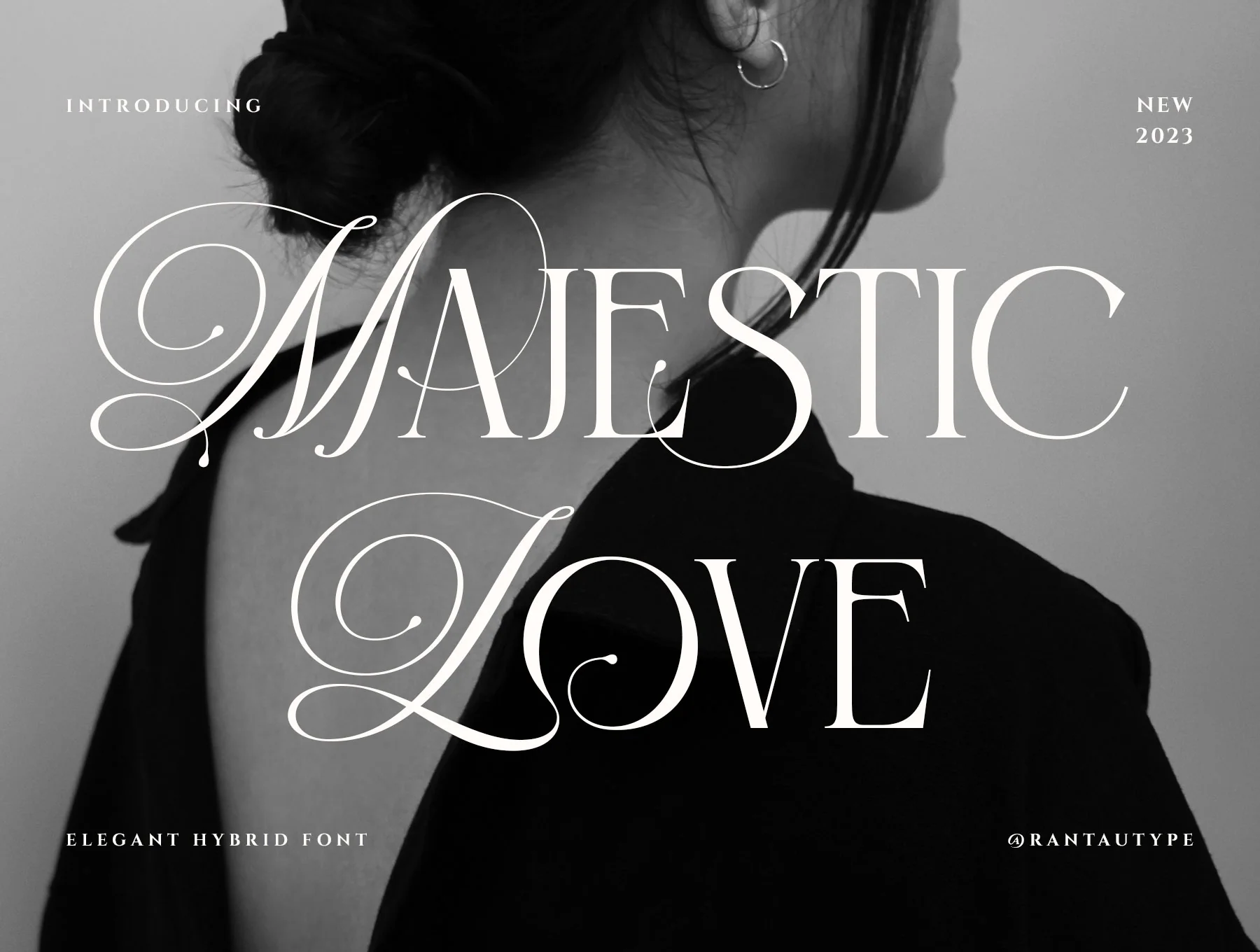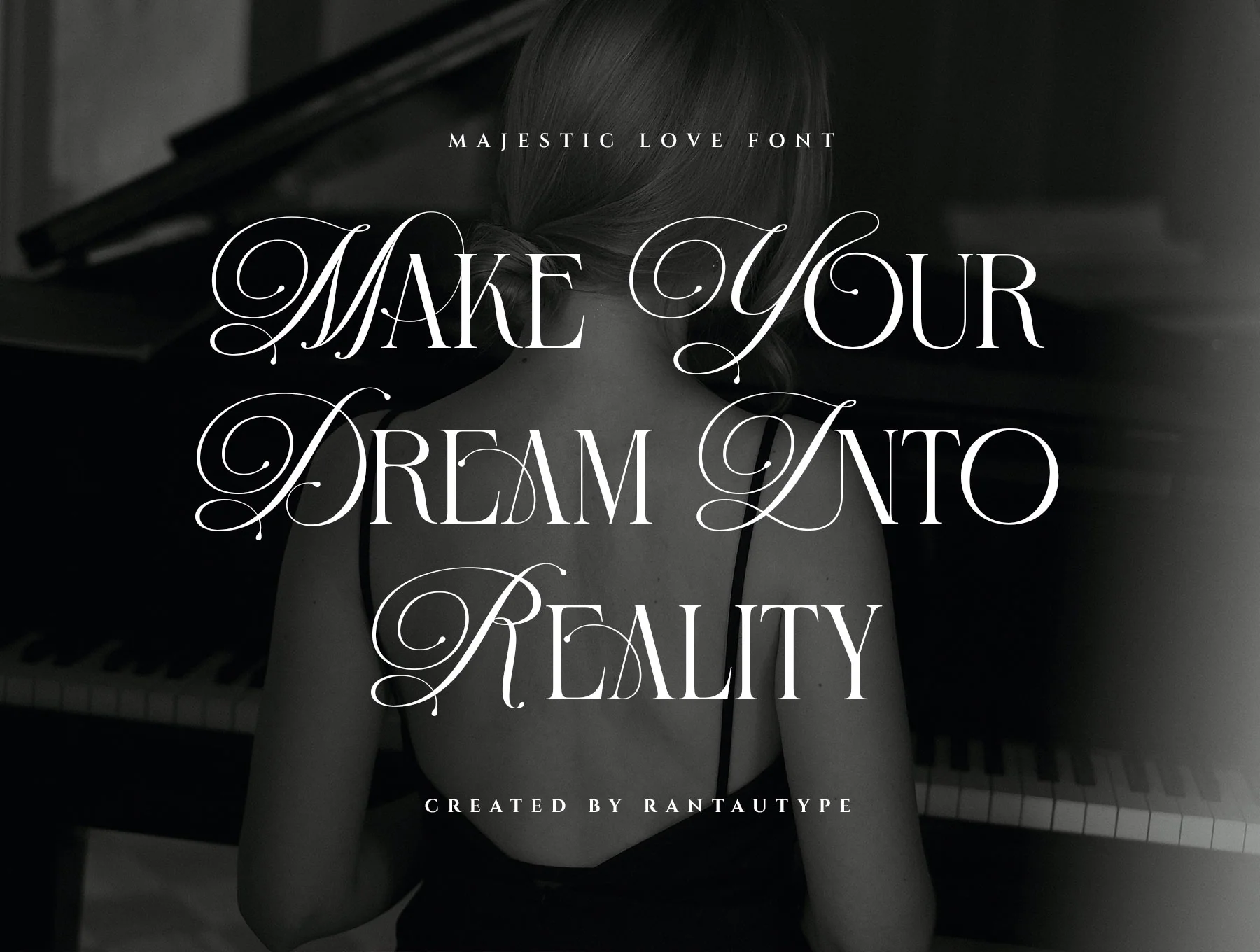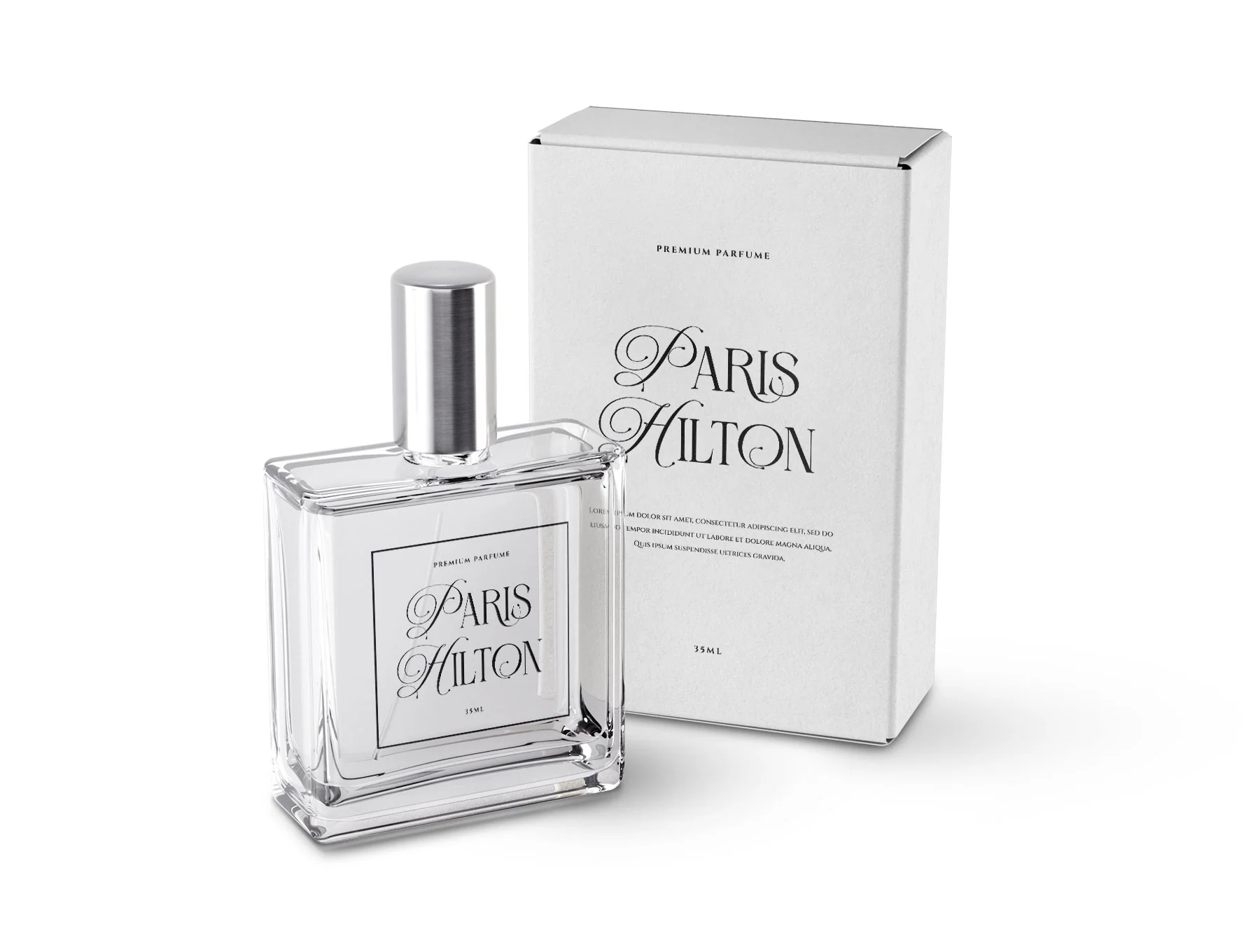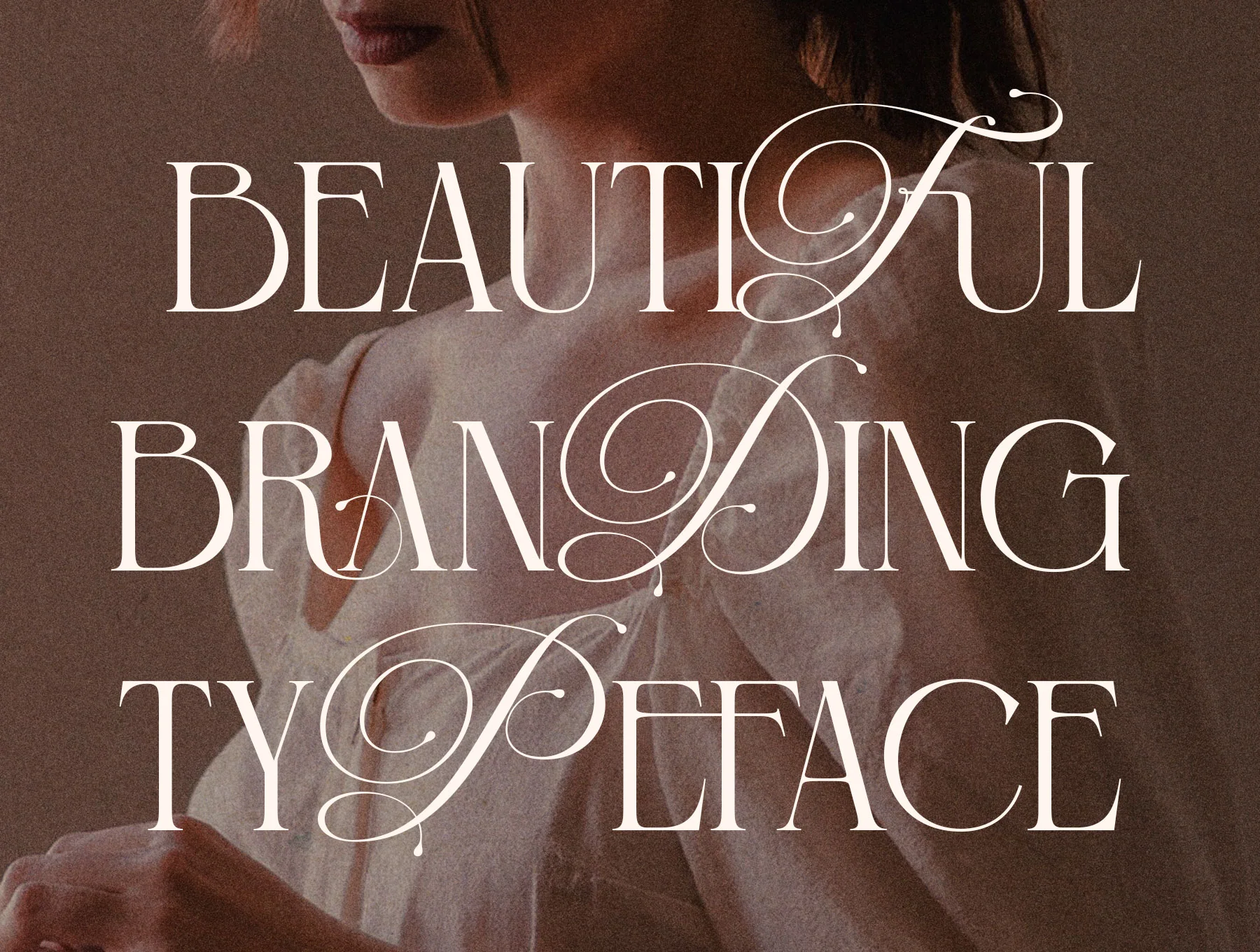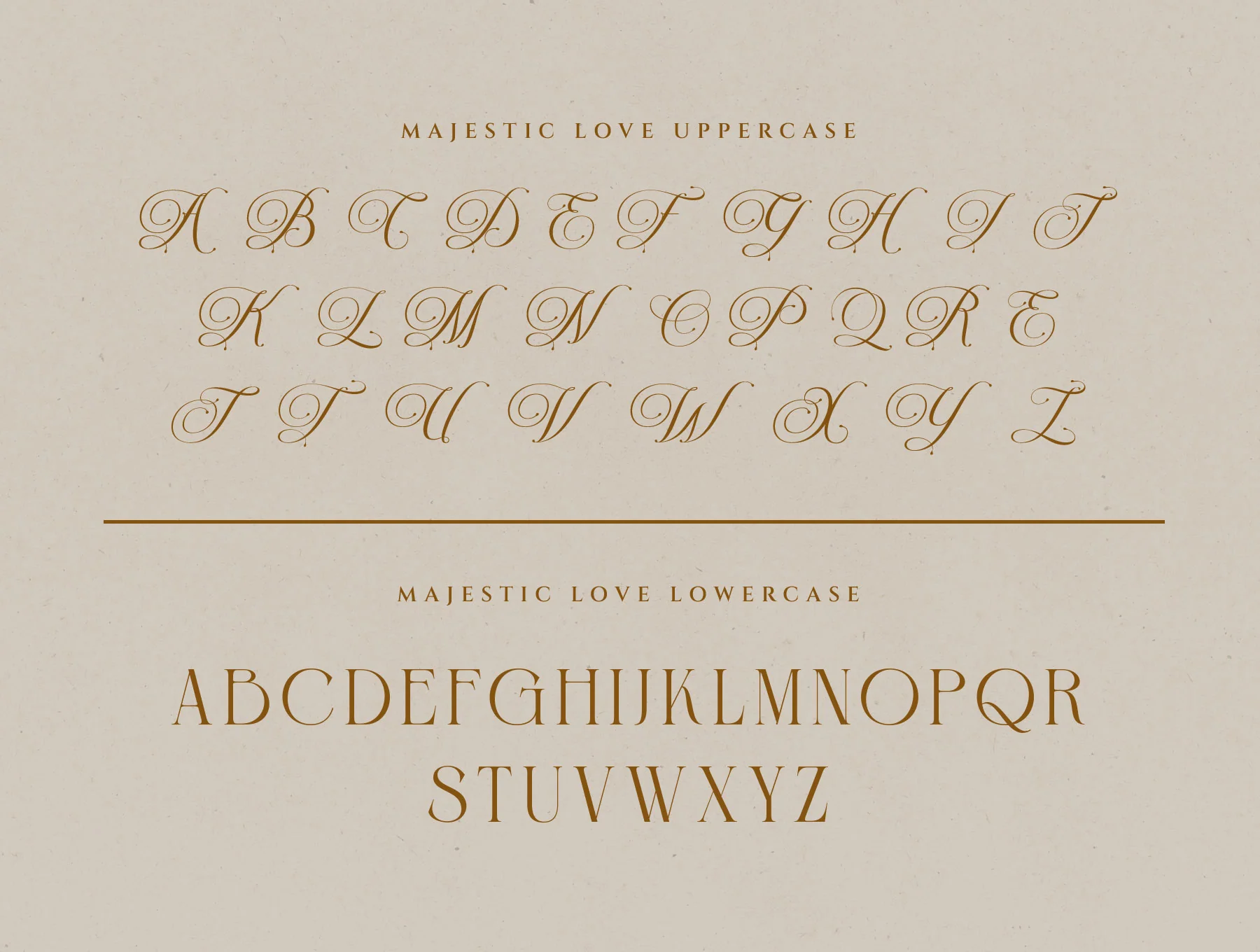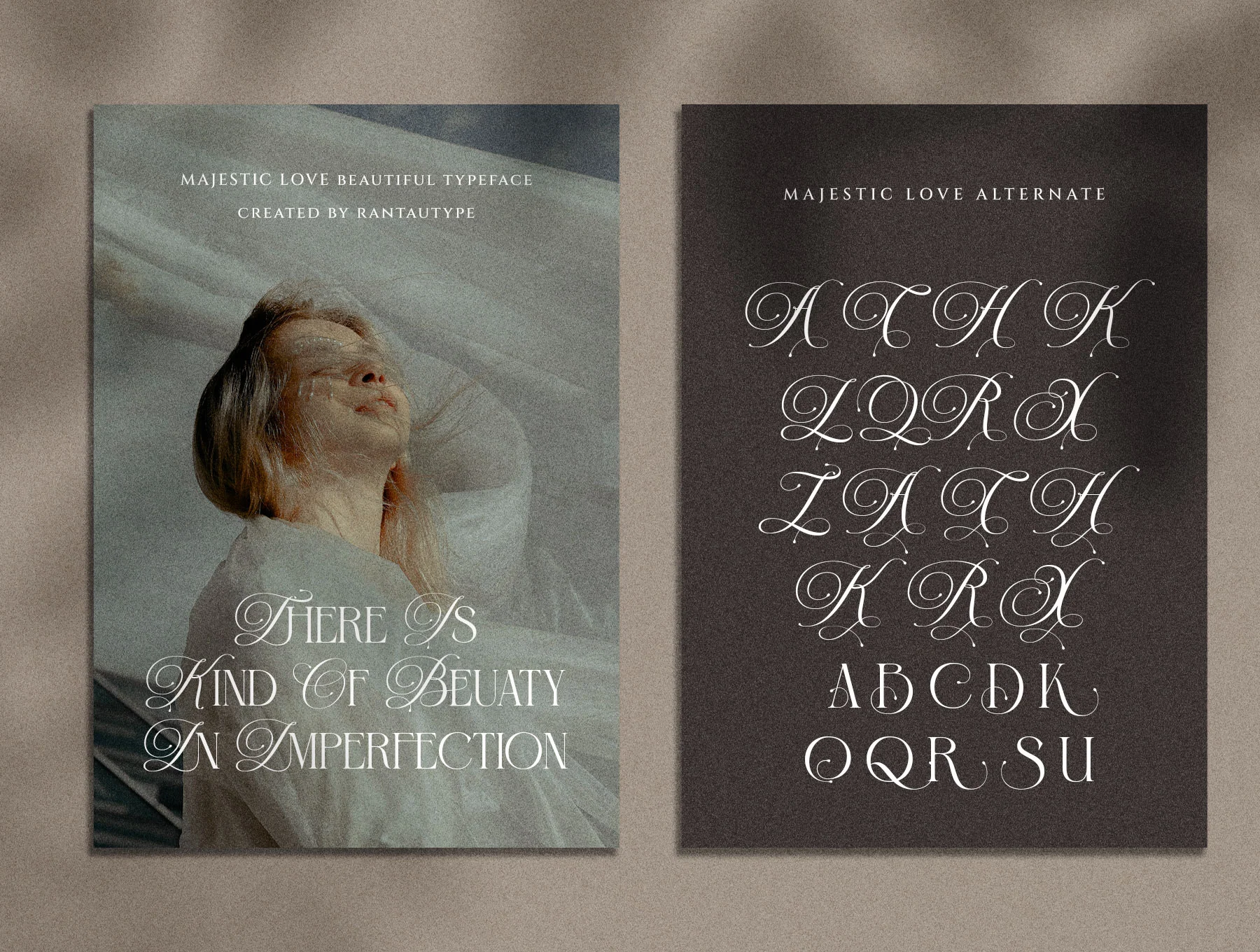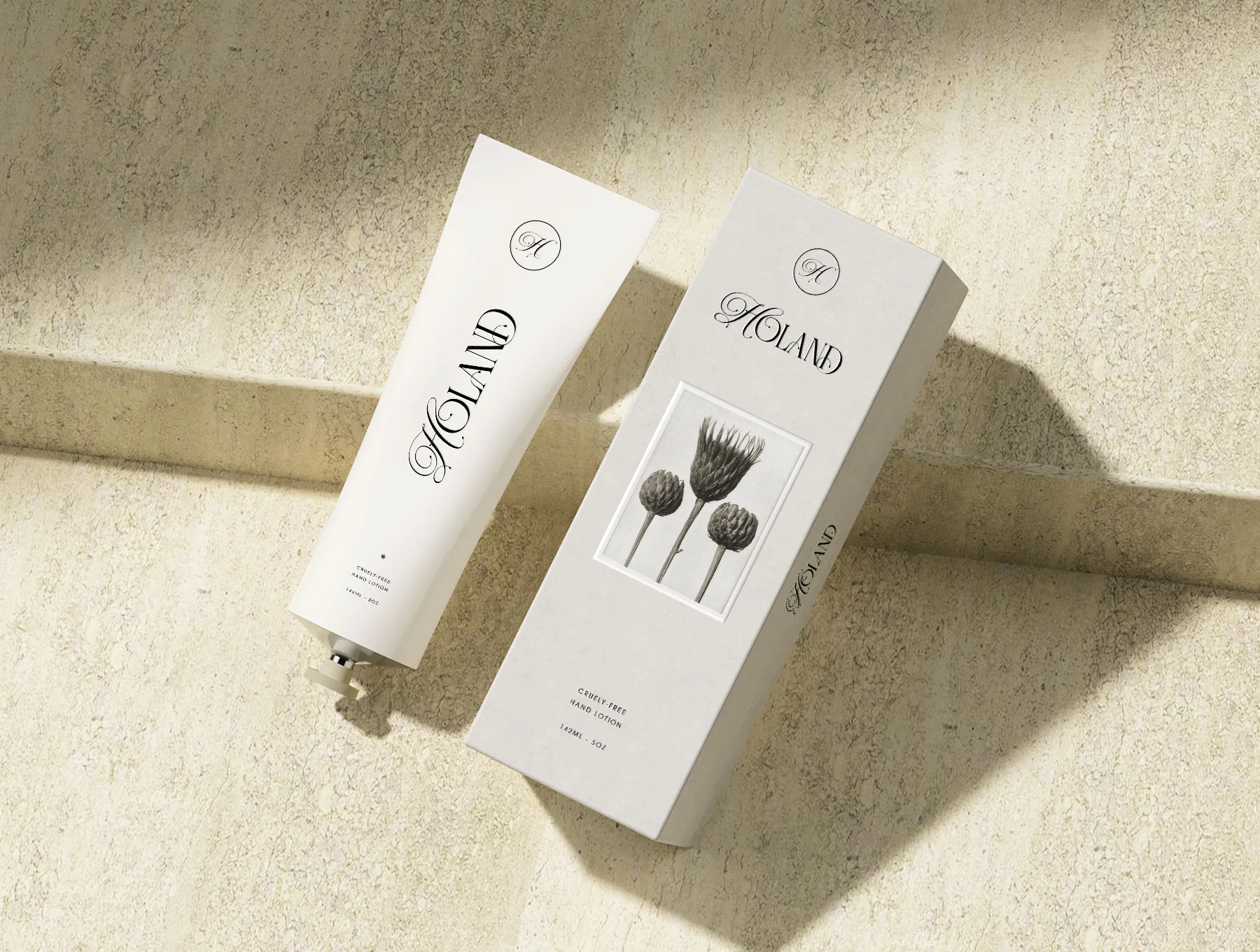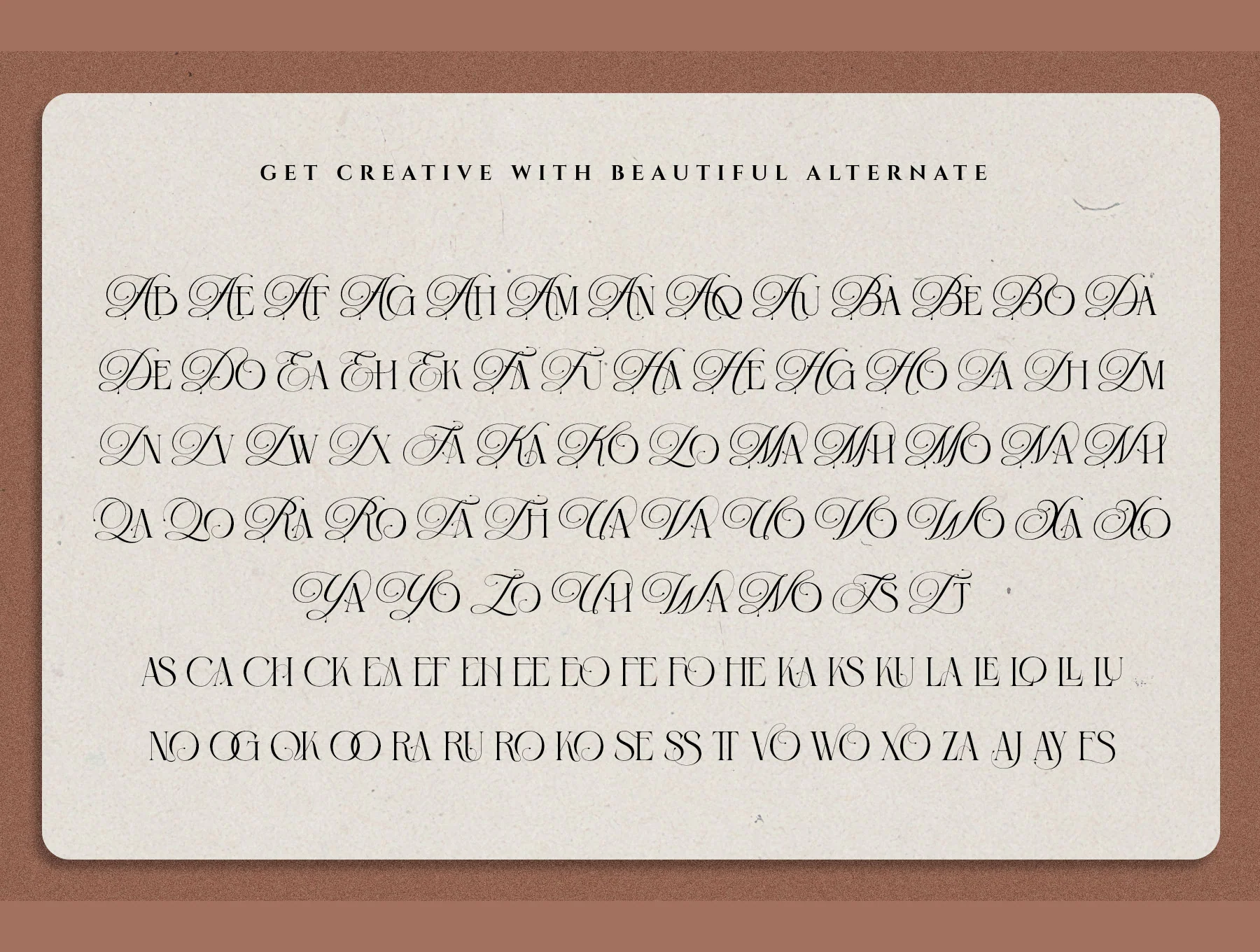
Majestic Love Beautiful Hybrid Serif Font
Elegant Hybrid Serif Typeface
Standard uppercase and lowercase letters
Numerals and functional symbols included
Elegant alternate characters
Majestic Love blends graceful calligraphy with a contemporary serif style, creating a charming, elegant, and nostalgic look. Ideal for headlines, branding, logos, packaging, editorials, websites, quotes, weddings, ads, and vintage or modern designs. Includes A-Z, a-z, numbers, alternates, ligatures, multilingual support, plus OTF, TTF, and WOFF files.